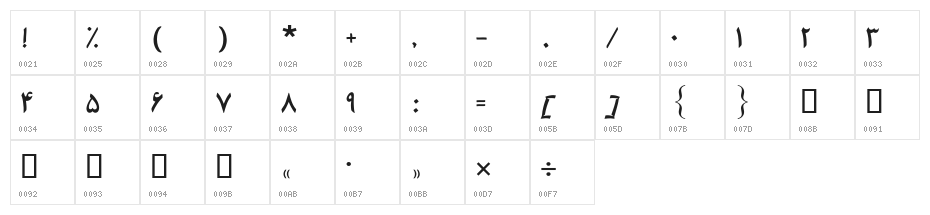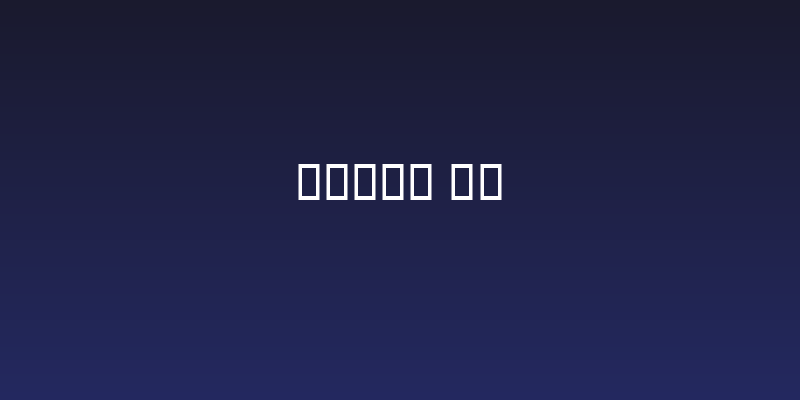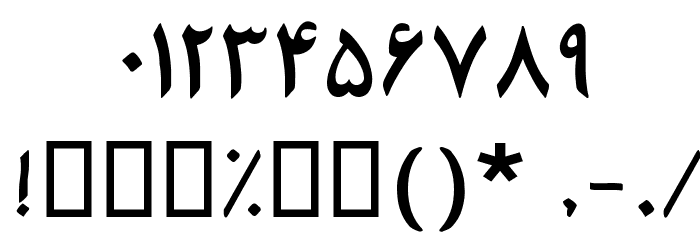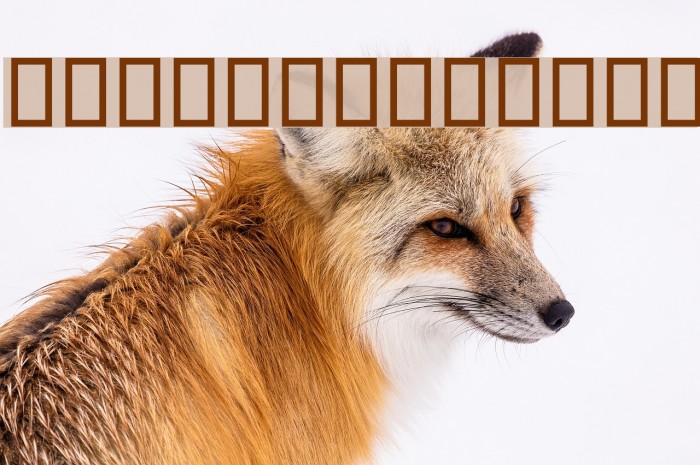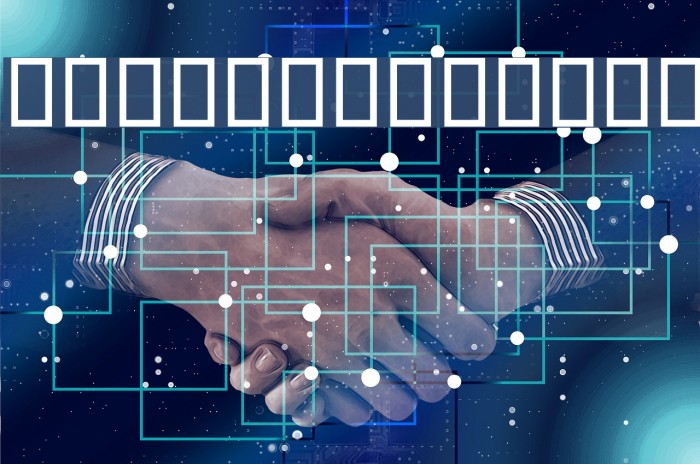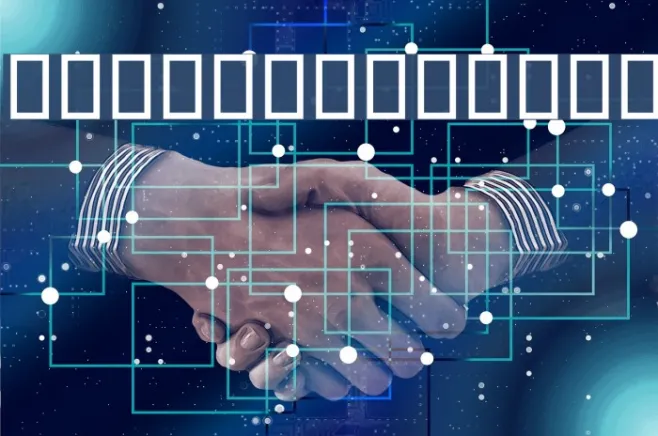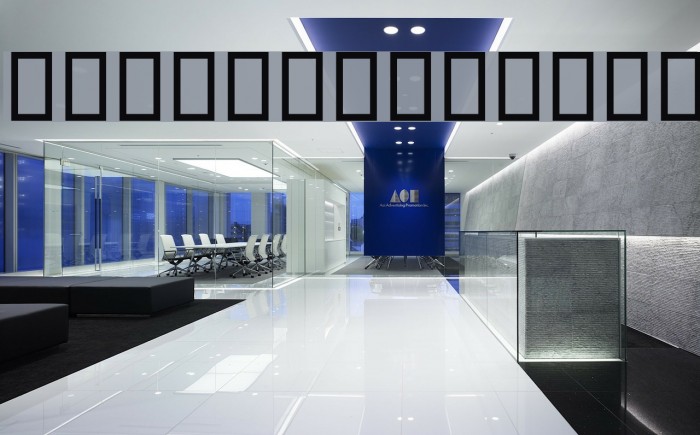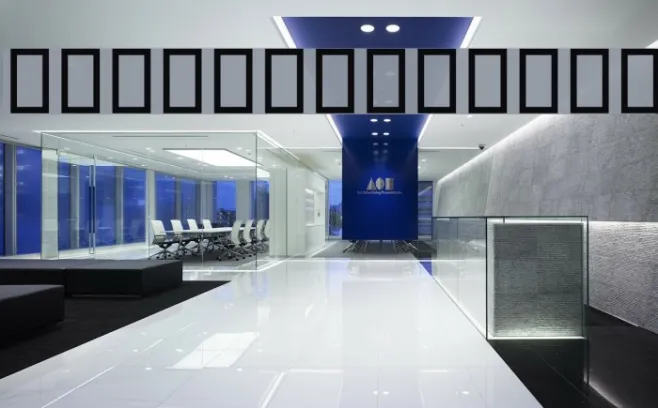
Wahid II Font
Wahid II Description
This font features a unique and artistic style, characterized by its flowing and cursive-like appearance. The numbers are presented in a calligraphic form, with elegant curves and a distinct flair that adds a touch of sophistication. The special characters maintain this artistic theme, providing a cohesive look throughout. The font's design is reminiscent of traditional calligraphy, making it suitable for projects that require a touch of elegance and creativity.
گالری فانت فارسی پژوهش آريانا - only compatible with Farsi and Arabic
| Proposed Projects | Ideal for wedding invitations, artistic posters, branding materials, and any project that benefits from a touch of elegance and creativity. |